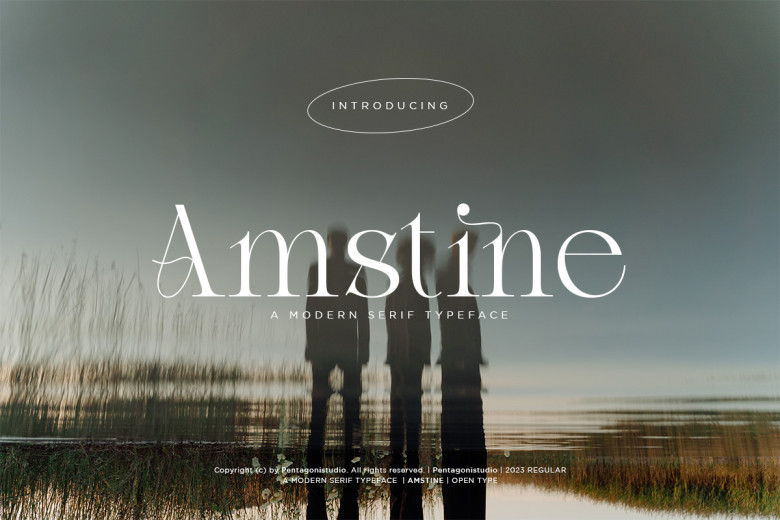
Amstine Font
“Amstine” is a Premiere font serif. This new and attractive handwritten font features a classy, smooth, and stylish handwritten design that makes it perfect for a large variety of esigning tasks. Amstine font has the swell thin enforcement with serifs, which draws an elegant and classic appearance..fa.vos-108.eh. Ads, branding, logo designs, social media posts, anything that requires a beautiful and creative script.
Amstine Serif Font